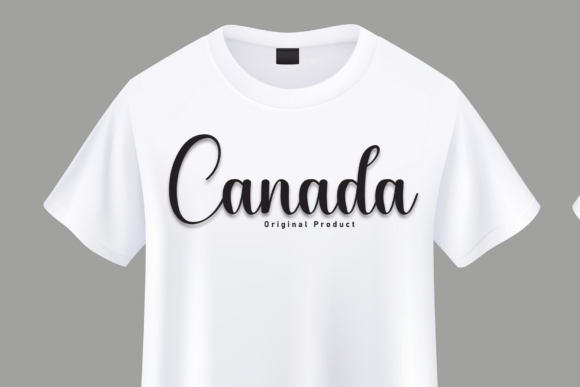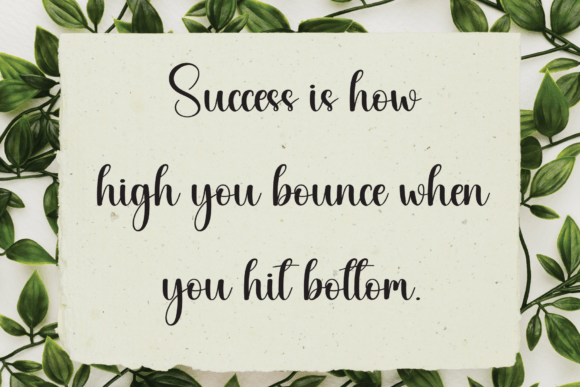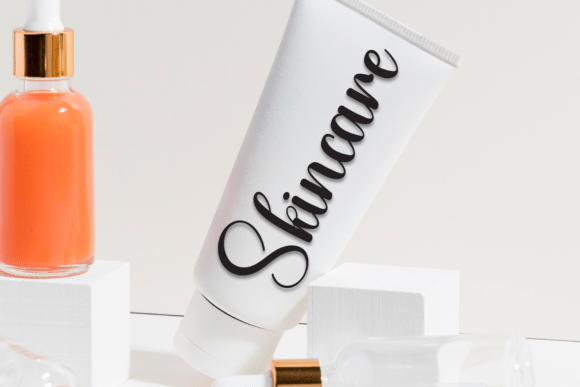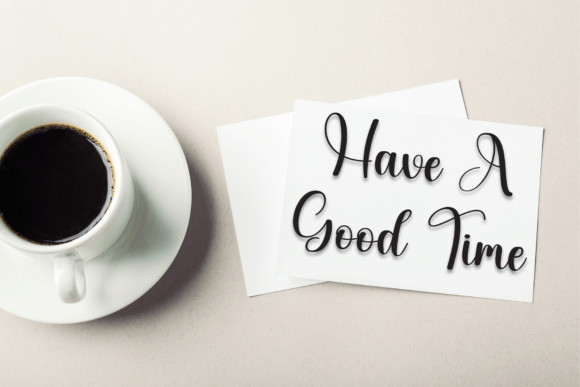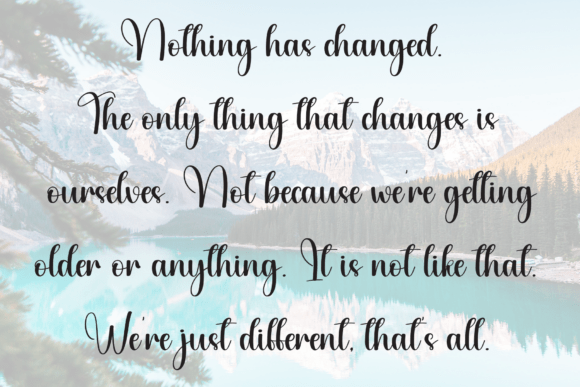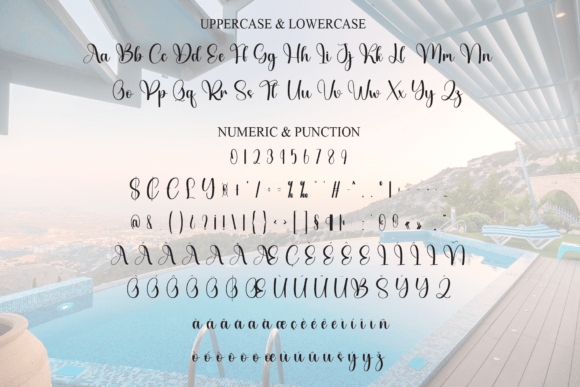
Adding a Touch of Elegance to Your Projects
As a designer, have you ever been tasked with creating a holiday campaign, only to find yourself struggling to convey the perfect blend of warmth and sophistication? The pressure to deliver a visually stunning and cohesive brand image can be overwhelming, especially during the holiday season. But what if you had the perfect tool to elevate your designs and make them truly unforgettable?
Enter Holiday Font, a stylish handwritten script font that combines elegance with a modern flair. This versatile typeface is designed to bring a personal, refined touch to any project, making it ideal for branding, invitations, and social media.
Holiday Font Key Features
- Font Family: Holiday Font is a unique, hand-drawn font family designed specifically for holiday-themed designs.
- Character Set: Includes a wide range of characters, including uppercase and lowercase letters, numbers, punctuation marks, and holiday-themed symbols.
- Unique Characteristics: Features a playful, handwritten style with intricate details and flourishes, making it perfect for adding a touch of whimsy to holiday designs.
Holiday Font Review
At first glance, the Holiday Font catches your eye with its playful and festive vibe ✨. The font’s use of ornaments and swashes adds a touch of whimsy and personality, making it perfect for winter-themed designs. The bold and cursive lines evoke a sense of joy and celebration, ideal for holiday greeting cards, gift tags, and party invitations.
- Fun and playful design ✨
- Perfect for winter-themed designs and holiday projects
- Includes ornaments and swashes for added flair
- Bold and cursive lines add a sense of joy and celebration
However, there are some limitations to consider ⚠️. The font may be too ornate for some designs, and the bold lines can make it difficult to read in smaller sizes. Additionally, the font’s use of ornaments and swashes may not be suitable for more formal or traditional designs.
Overall, I think the Holiday Font is a great choice for designers looking to add a festive touch to their projects. While it may not be suitable for every design, its playful and whimsical vibe makes it a standout choice for holiday-themed designs. With a little creativity and restraint, the Holiday Font can add a lot of personality and joy to your designs.
Tips for Getting the Most Out of Holiday Font
Use the Holiday Font to add a festive touch to your designs, such as holiday cards, gift tags, and party invitations.
Experiment with different font sizes, colors, and styles to create a unique and eye-catching look.
Combine the Holiday Font with other festive graphics and elements to create a cohesive and holiday-themed design.
Holiday cards and invitations
Gift tags and wrapping paper
Party decorations and signage
Seasonal marketing materials and advertisements
Alternatives to Holiday Font for Designers
Playfair Display is a luxurious and elegant script font, perfect for adding a touch of sophistication to holiday designs. Its classic look and feel make it ideal for use in invitations, greeting cards, and other special occasion materials.
Compared to Holiday Font, Playfair Display has a more refined and sophisticated feel, making it better suited for high-end designs. It’s also more versatile and can be used in a variety of contexts, from formal to informal.
Great Vibes is a modern and stylish script font that’s perfect for adding a fun and festive touch to holiday designs. Its flowing lines and dynamic feel make it ideal for use in social media graphics, advertisements, and other promotional materials.
Compared to Holiday Font, Great Vibes has a more energetic and playful feel, making it better suited for casual and creative designs. It’s also more flexible and can be used in a variety of contexts, from digital to print.
Q: Does Holiday Font include any special characters or symbols?
Holiday Font includes a comprehensive set of special characters and symbols, including ornaments, icons, and dingbats. These characters are designed to be consistent with the overall style and aesthetic of the font. The font also includes a range of language-specific characters and diacritical marks to support international typography.